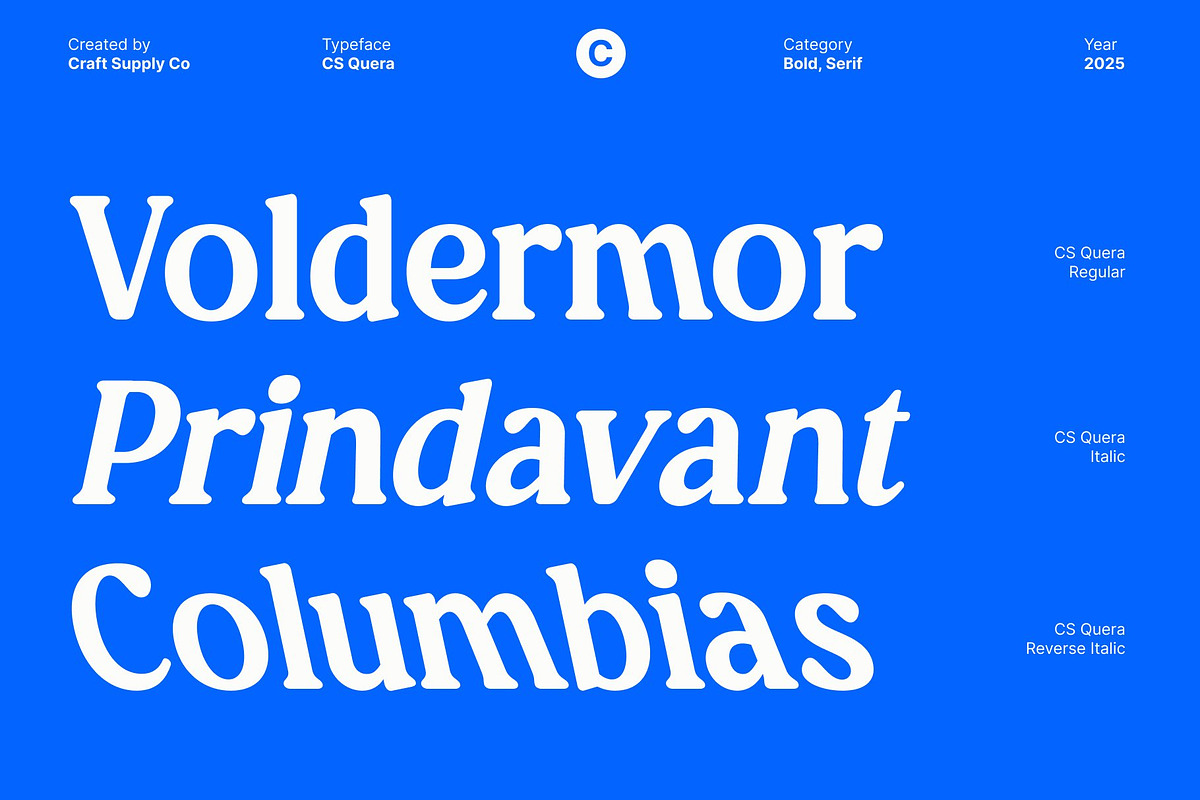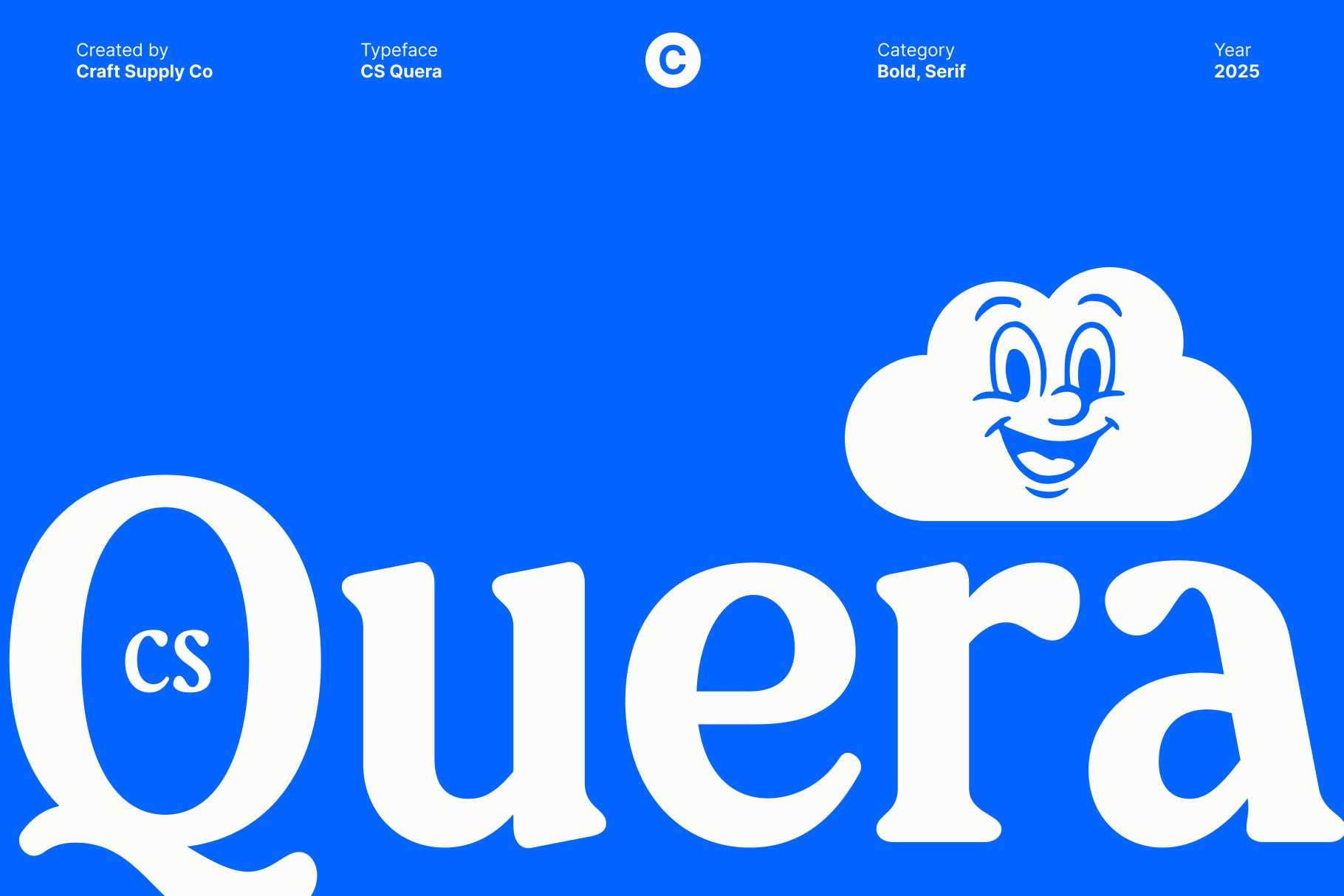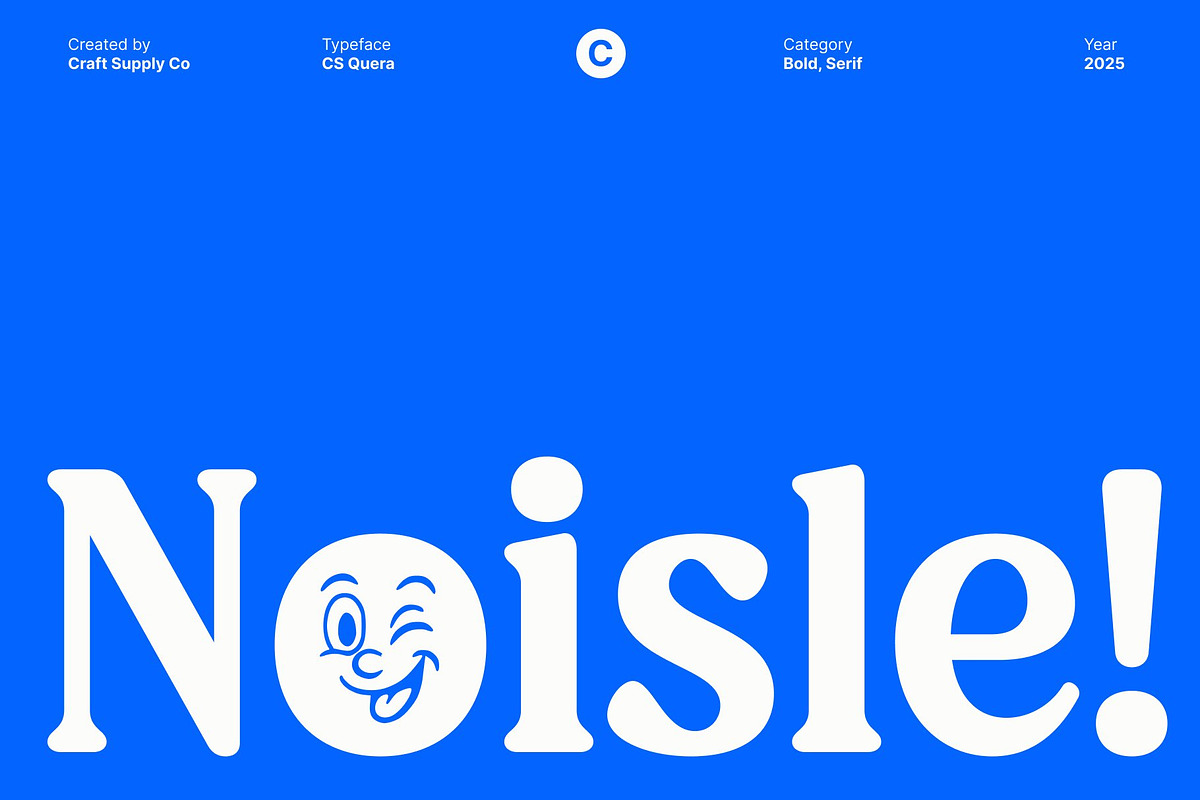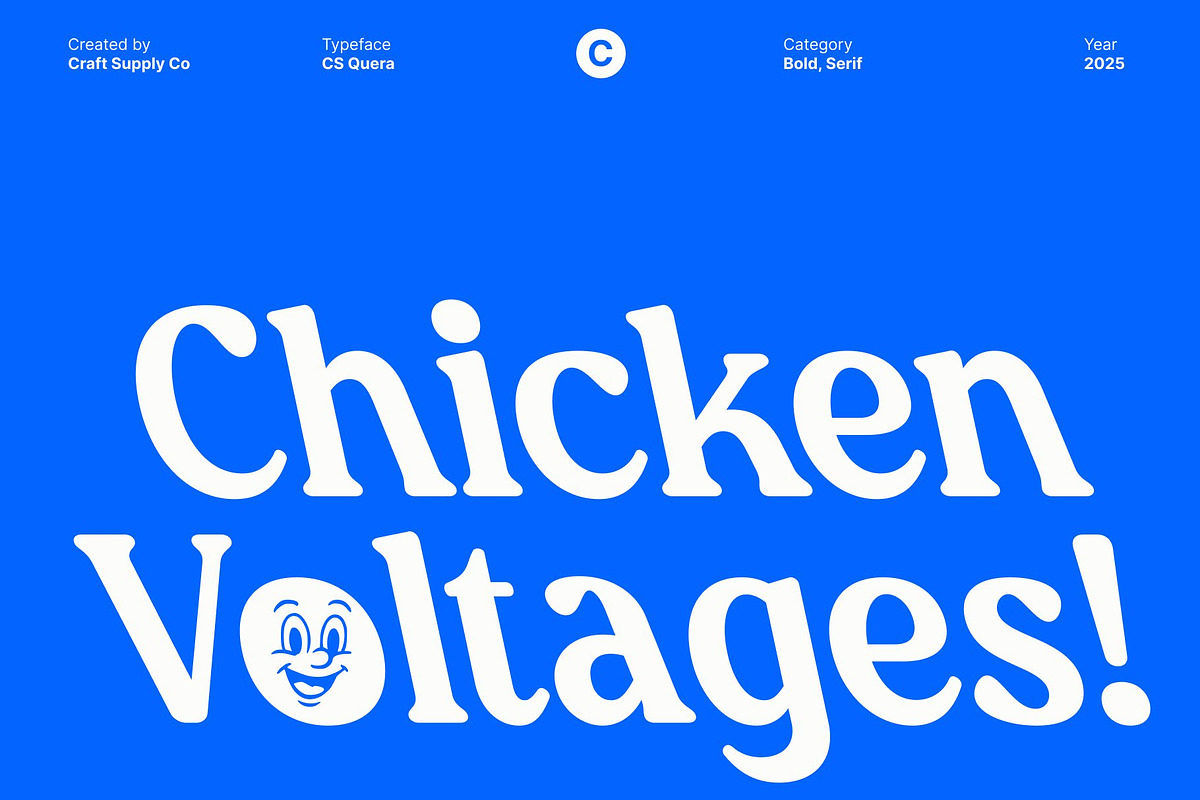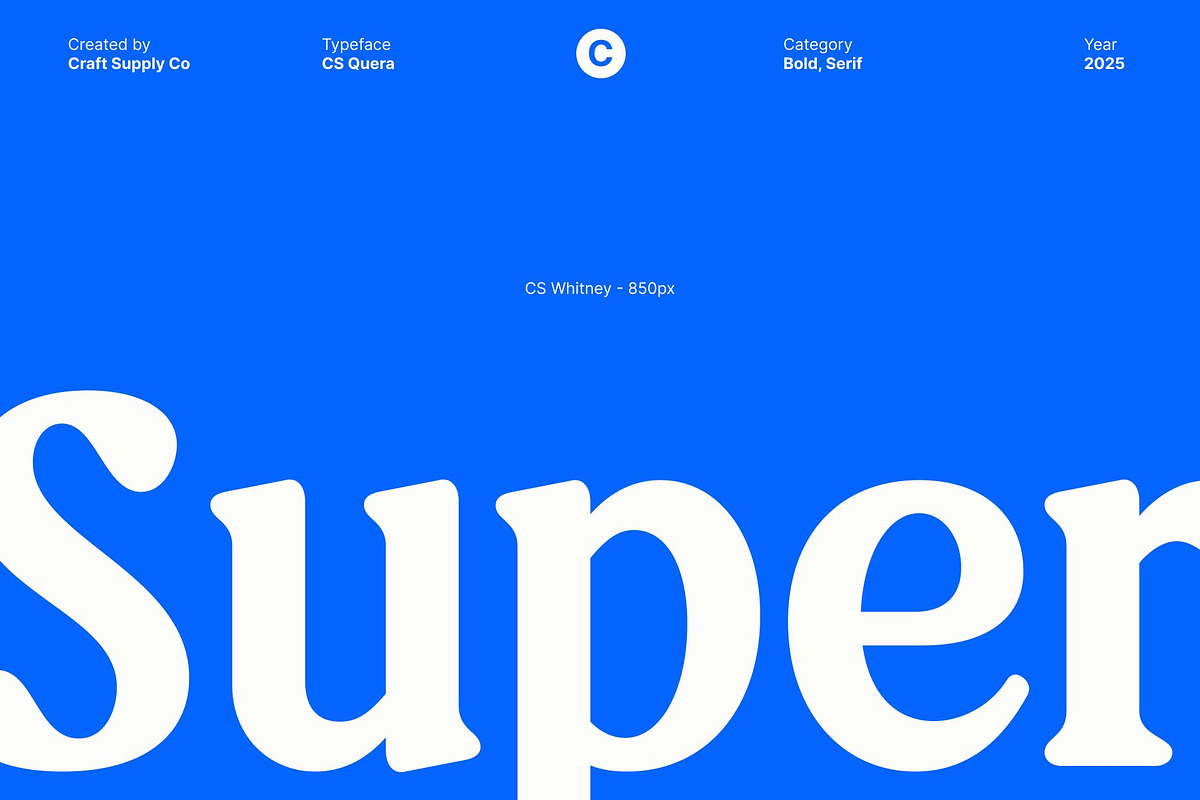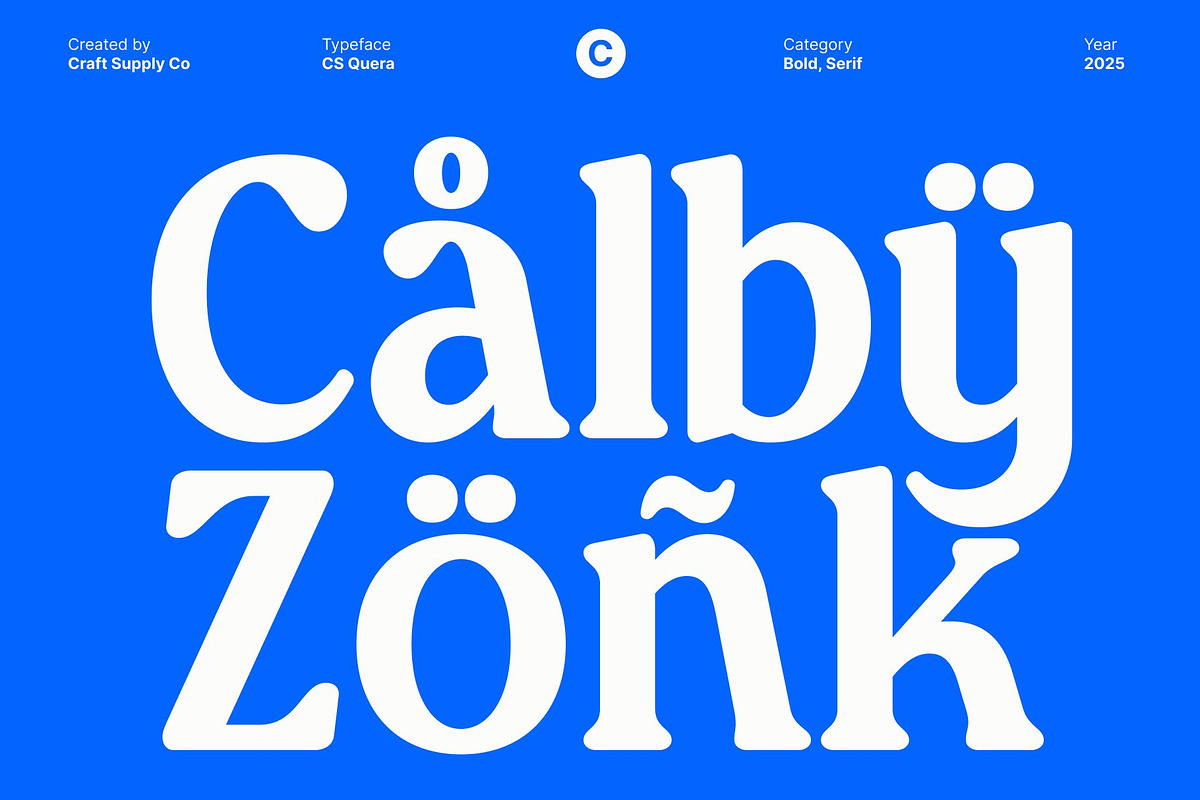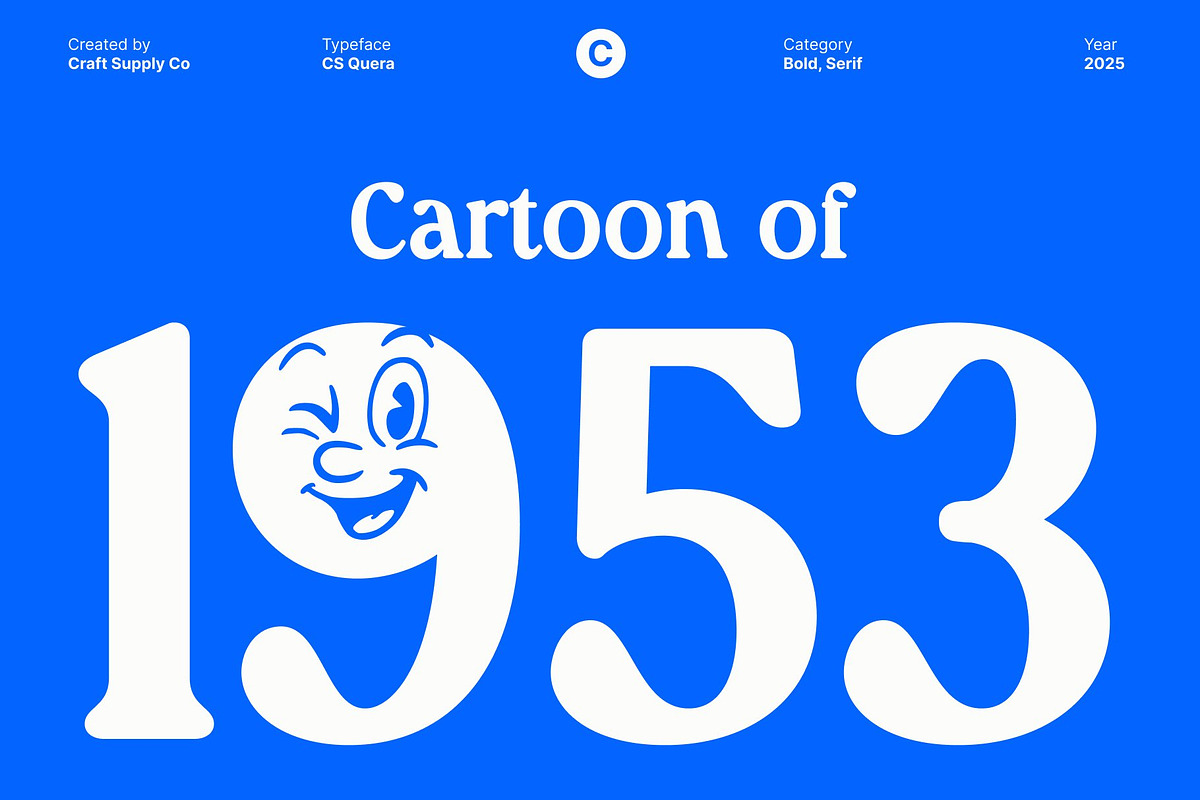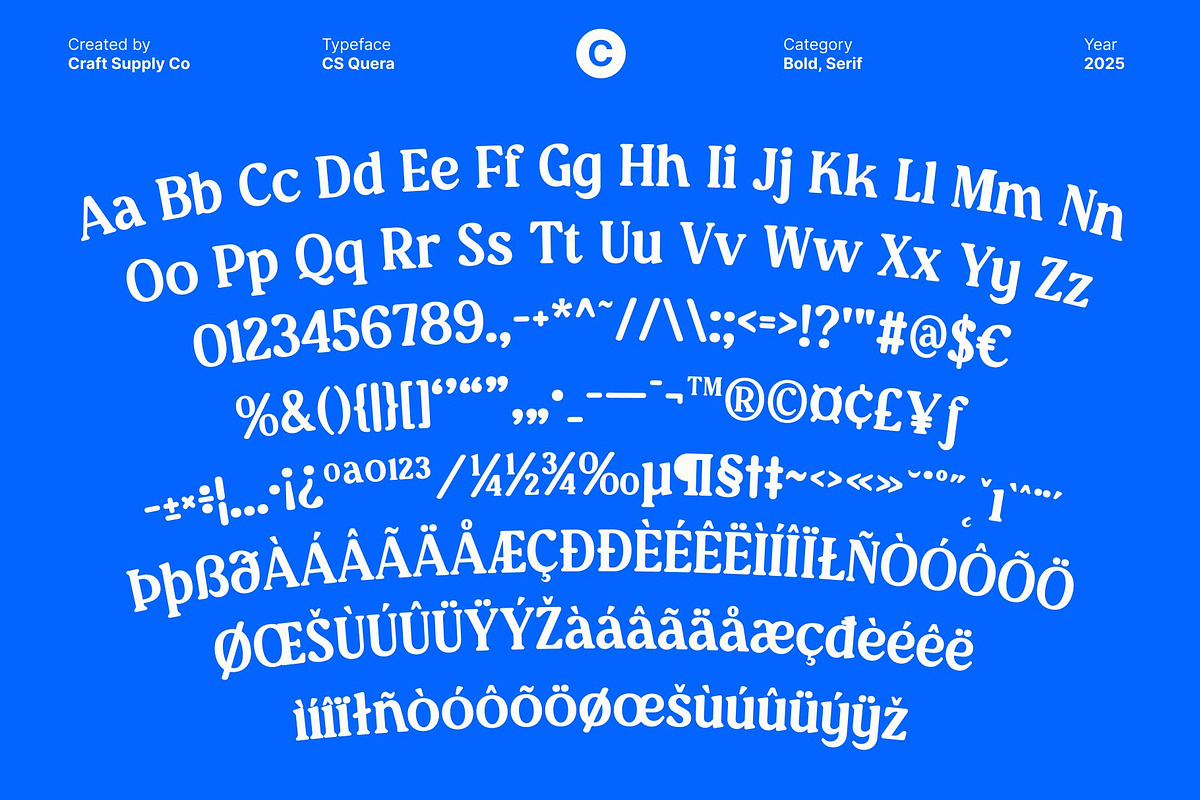
CS Quera – Bold Serif Font
CS Quera – Bold Impact with Retro Charm
Striking Bold Font with Commanding Presence This is a bold display font designed to capture attention immediately. Its thick, confident letterforms create a strong visual impact, making it ideal for designs that demand visibility and authority.
Retro-Inspired Design with Nostalgic Appeal With subtle retro influences, this font evokes a sense of nostalgia while maintaining a modern boldness. Its classic yet contemporary forms bring character and personality to any layout, bridging timeless style with striking visuals.
Powerful and Readable Typography The weight and structure of this font ensure clarity and readability across headlines, posters, and branding materials. Its commanding presence makes it a reliable choice for projects that need to stand out in both print and digital formats.
Perfect for Posters, Headlines, and Retro Branding From eye-catching posters and impactful headlines to strong branding and nostalgic designs, this font delivers boldness and charm in equal measure. Its versatile style makes it ideal for projects seeking both retro flair and modern visual authority.